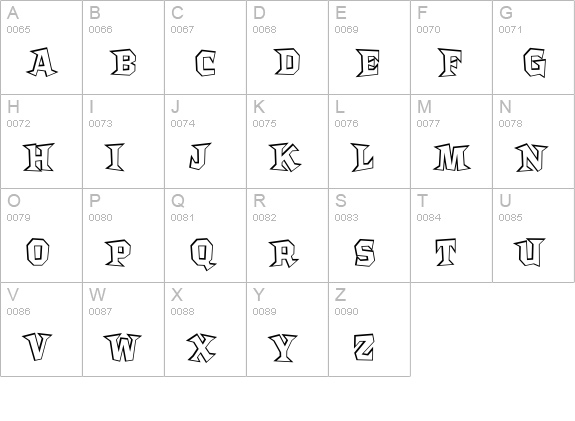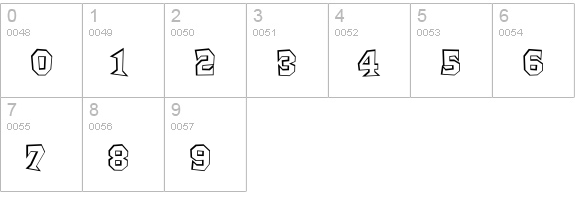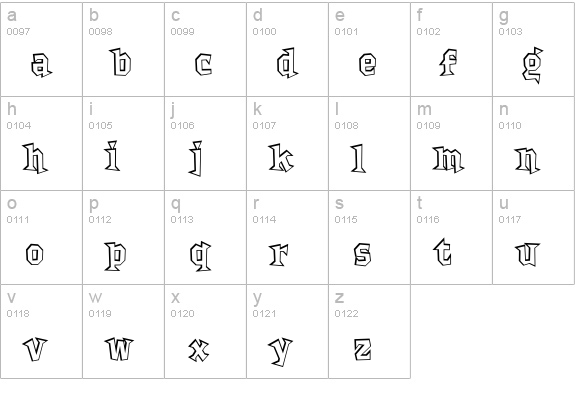
Bordello-Shaded Font Details
Bordello-Shaded font is a stunning display typeface that exudes elegance and sophistication. With its intricate shading and ornate details, this font is perfect for adding a touch of luxury to your designs. The unique and eye-catching style of Bordello-Shaded font makes it ideal for headlines, logos, and branding projects that require a touch of glamour. The best part? Bordello-Shaded font is completely free to download at FontsMarket.com. This means you can easily add this beautiful font to your collection without having to spend a dime. Whether you're a professional designer or just looking to spruce up your personal projects, Bordello-Shaded font is a fantastic choice that will elevate your work to the next level. Download it today and start creating stunning designs with this exquisite typeface.